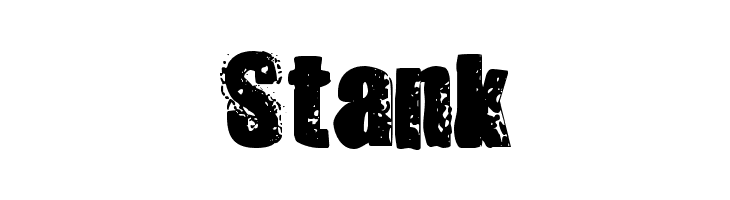
A bold, distressed font with a vintage, textured appearance.
An elegant script font with flowing, cursive letterforms and decorative swashes.
A playful, handwritten font with tall, narrow letters and a casual style.
A playful, casual handwritten font with rounded edges and a friendly appearance.
A decorative font with ornate patterns and elegant flourishes.
A bold, cursive handwritten font with dynamic, flowing characters.
A bold, 3D slab serif font with wide characters and a modern style.
A bold, playful font with rounded, chunky letters perfect for a youthful and fun vibe.